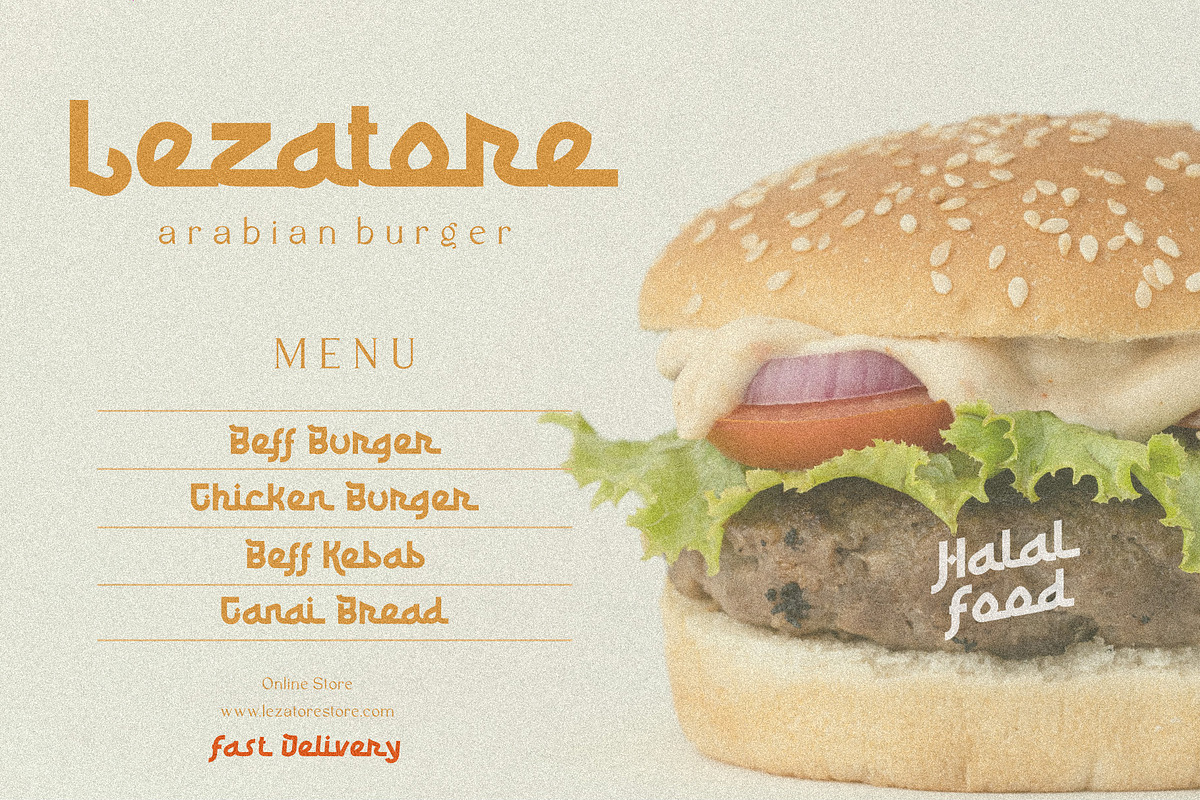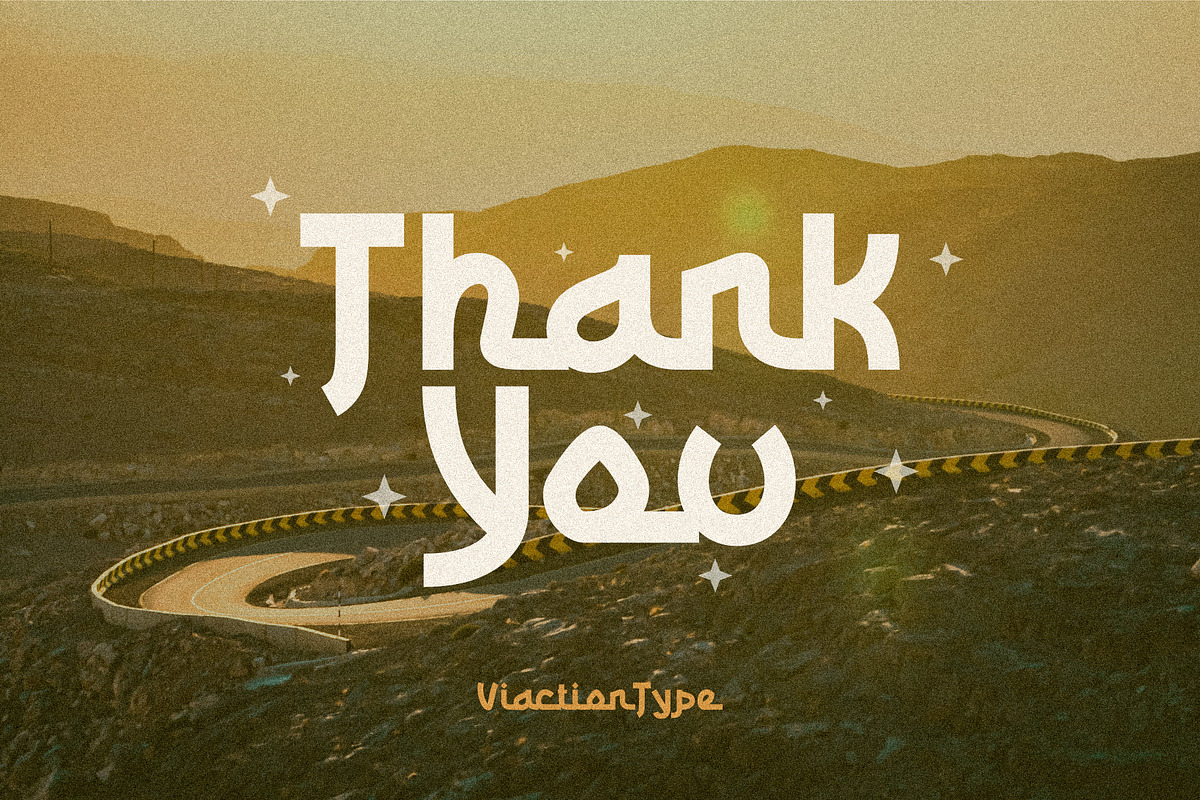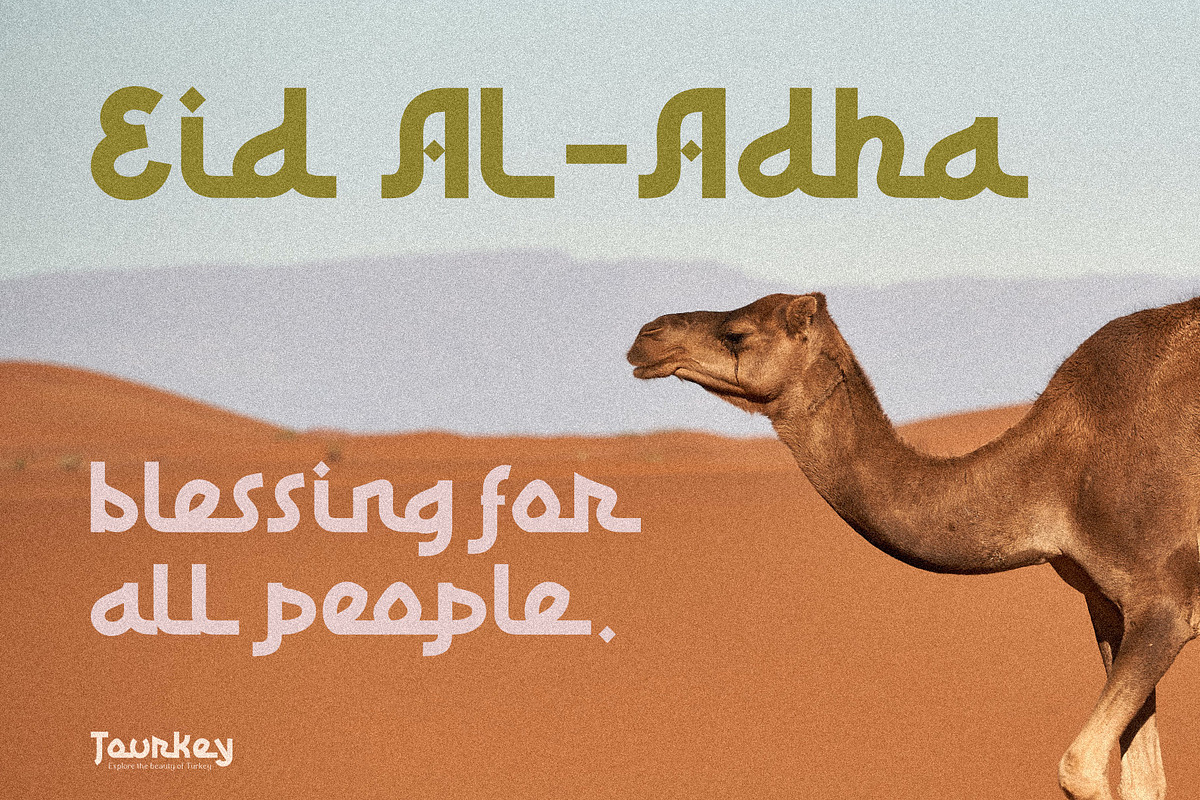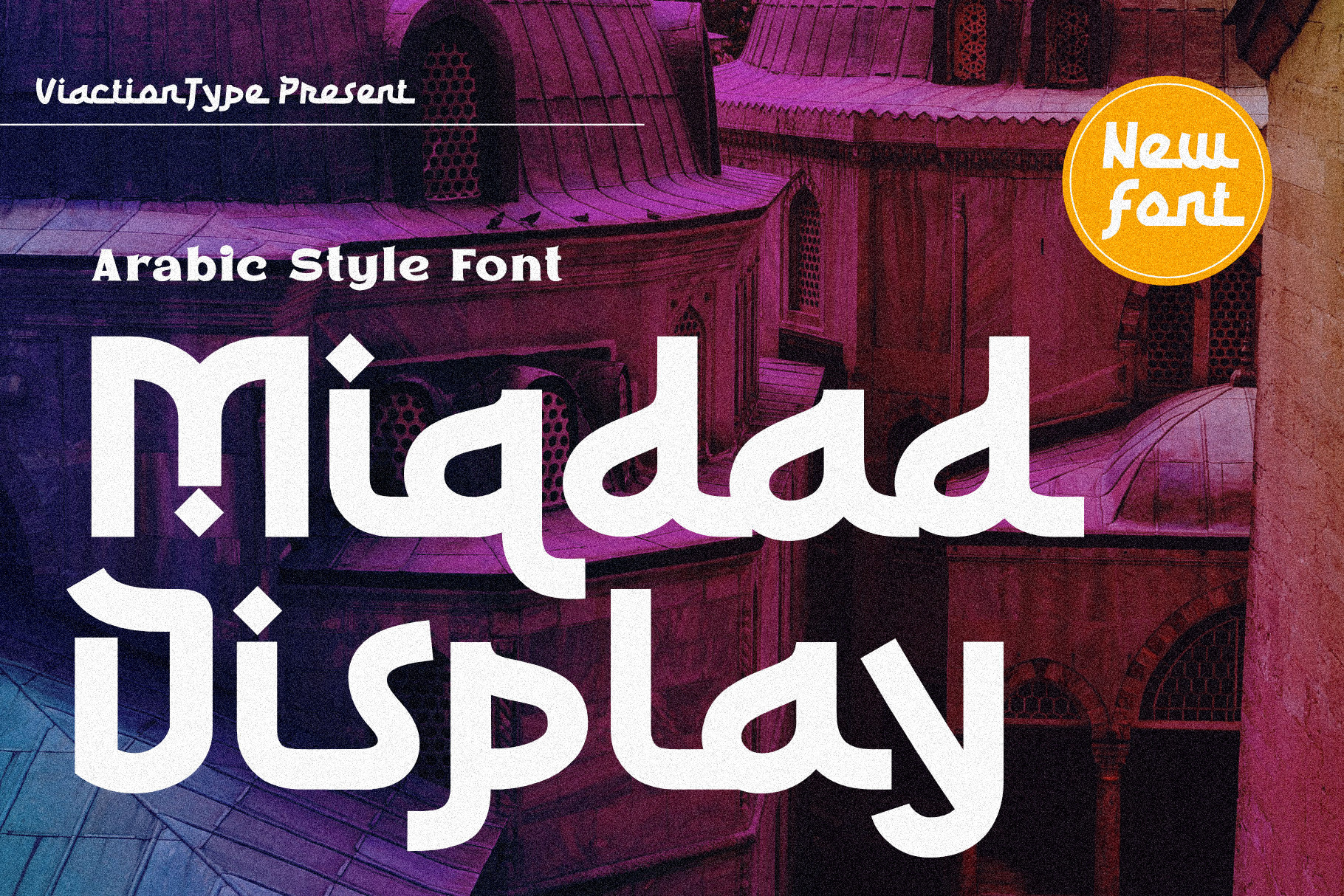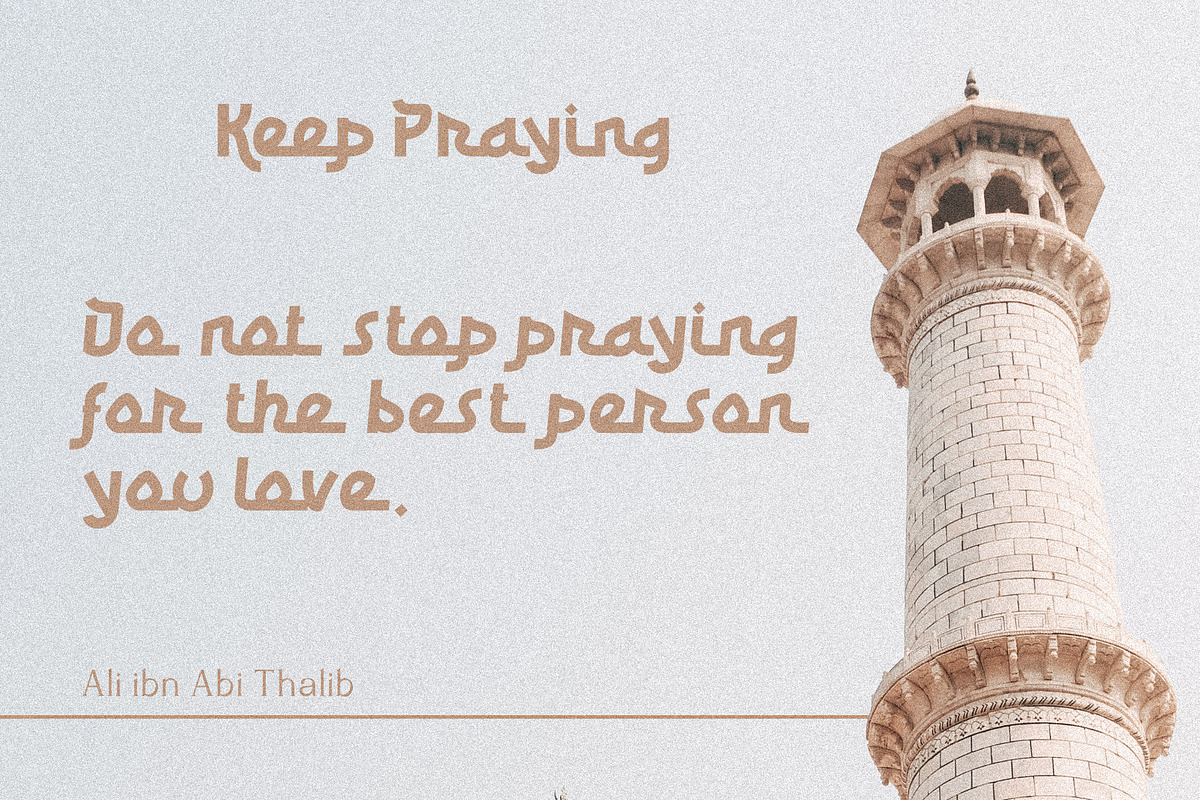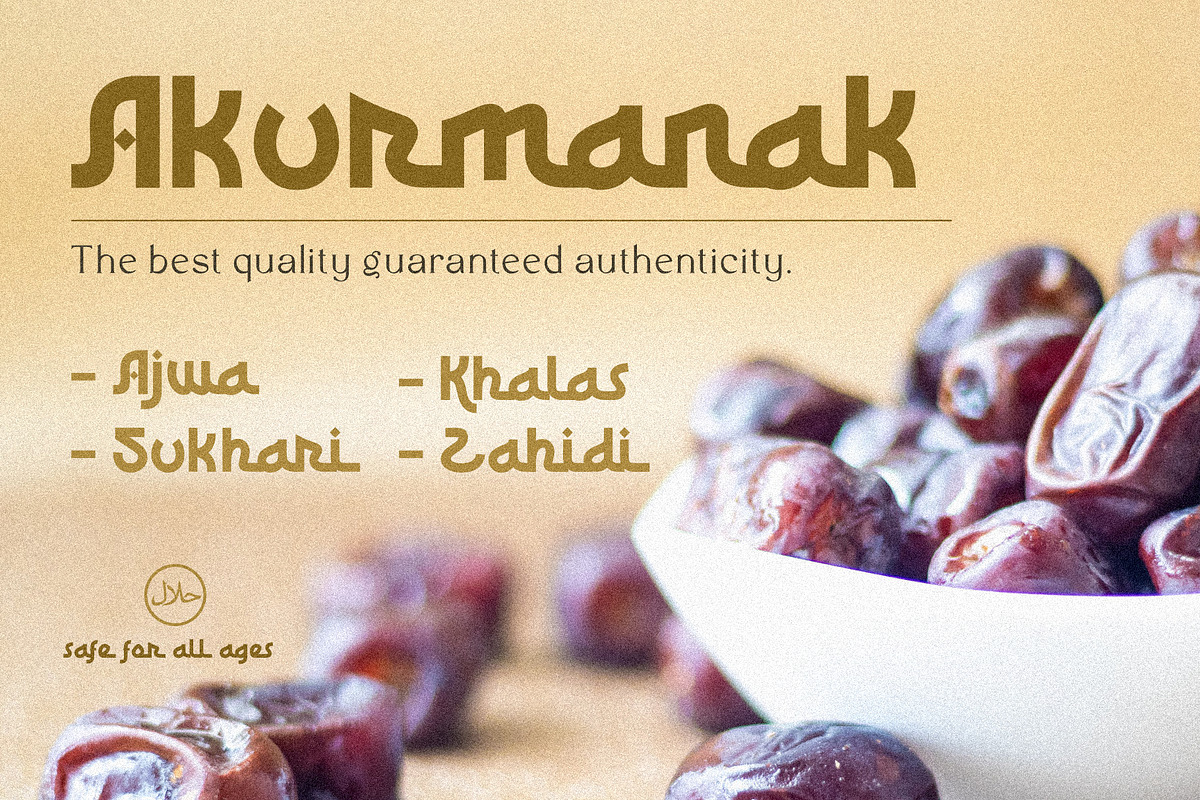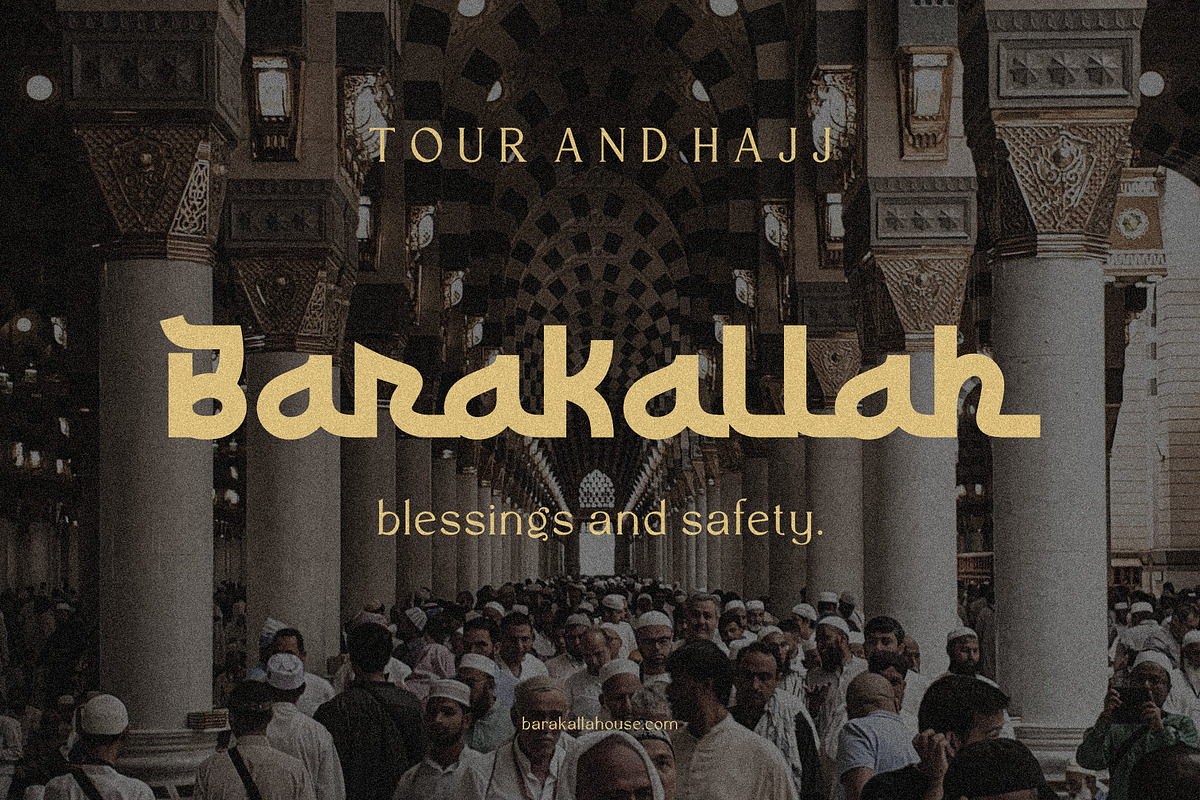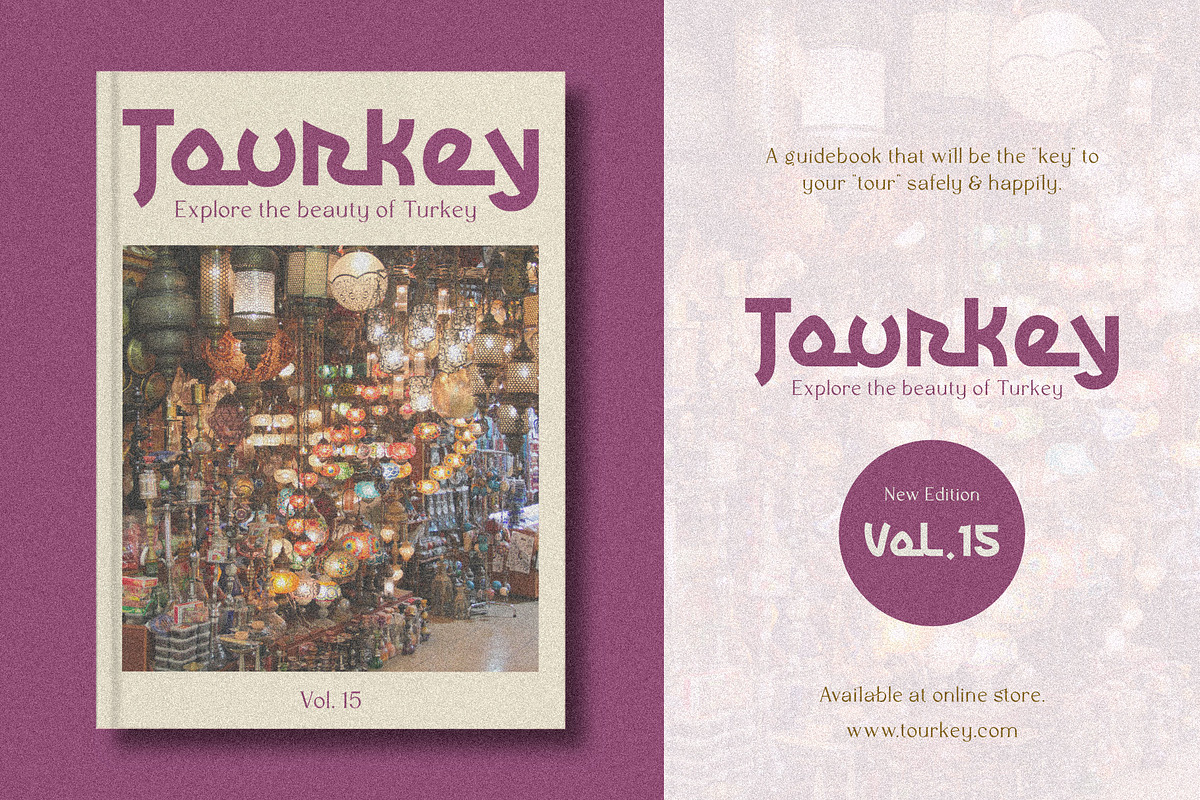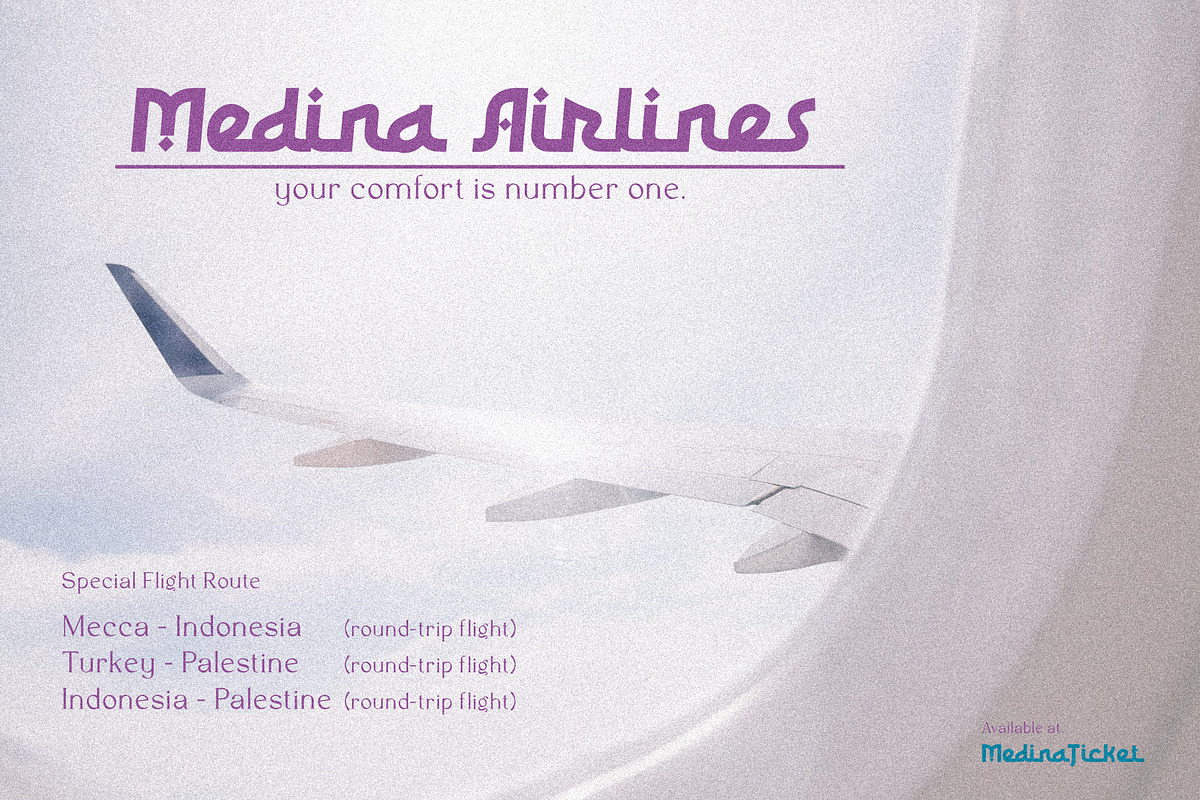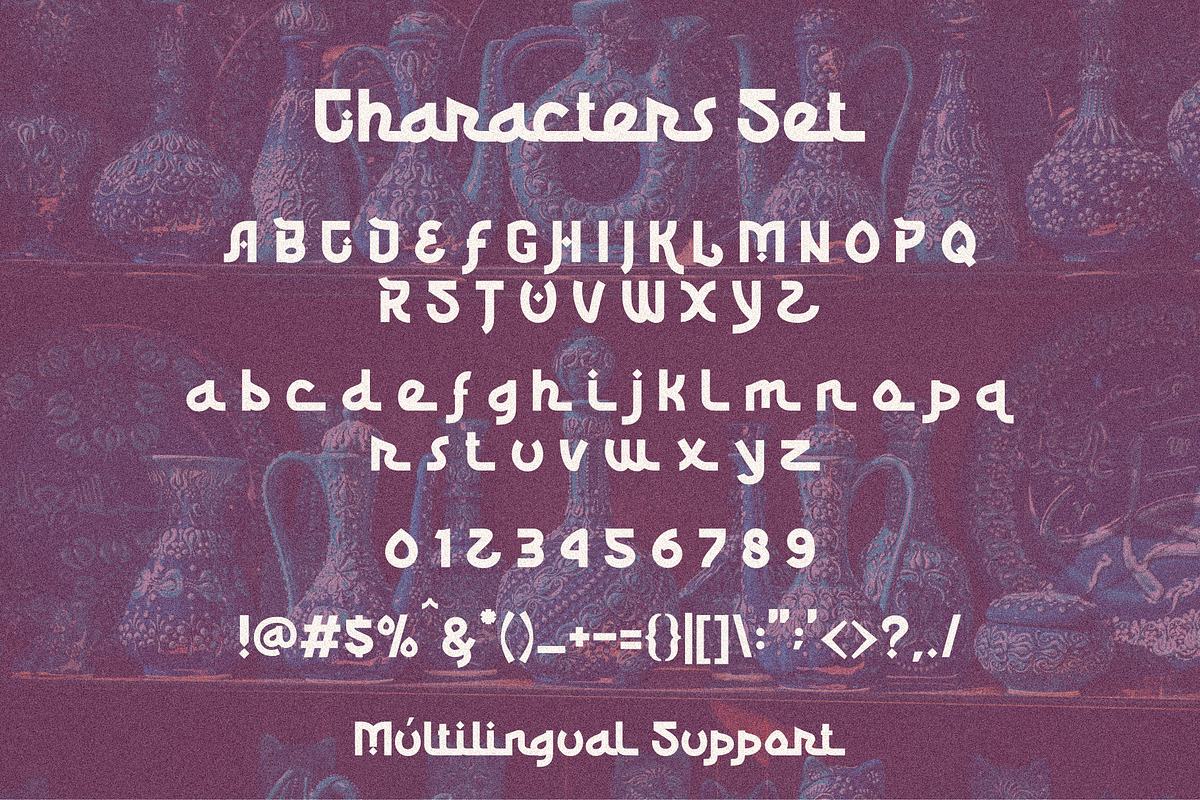
VT Miqdad - Display Font
Discover Miqdad Font, a beautifully crafted typeface inspired by the timeless elegance of Arabic calligraphy. Designed to blend tradition with modernity, Miqdad offers two distinct styles: Regular for classic sophistication and Oblique for dynamic, slanted versatility. Perfect for branding, editorial design, packaging, and digital projects, this font captures the essence of Arabic script while ensuring global appeal.
Miqdad Font is meticulously designed with comprehensive support for numerals, punctuation, and multilingual characters, making it ideal for diverse languages and creative applications. Whether you’re crafting logos, invitations, social media content, or multilingual publications, Miqdad ensures seamless readability and cultural authenticity.
- 2 Styles: Regular & Oblique for flexible design choices.
- Arabic-Inspired Aesthetics: Elegant curves and fluid strokes.
- Multilingual Support: Covers Latin-based languages and Arabic script.
- Full Character Set: Includes numerals, symbols, and punctuation.
- Versatile Use: Optimized for web, print, and digital platforms.